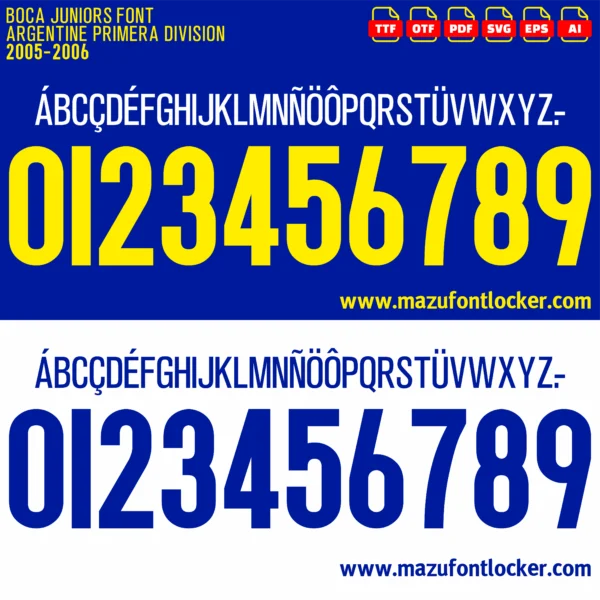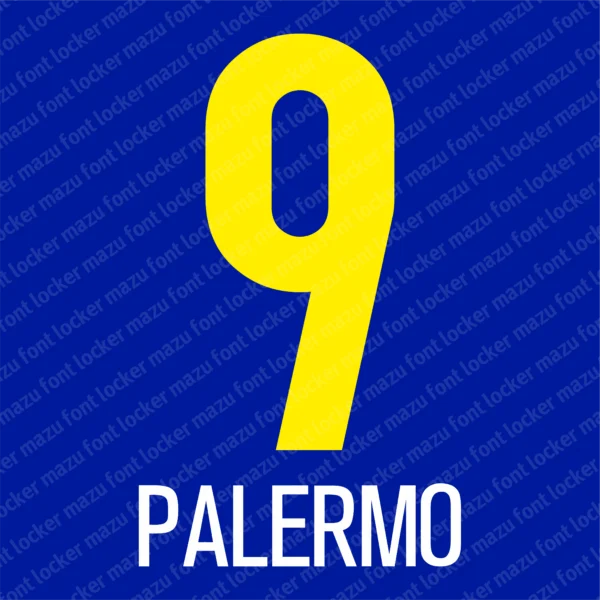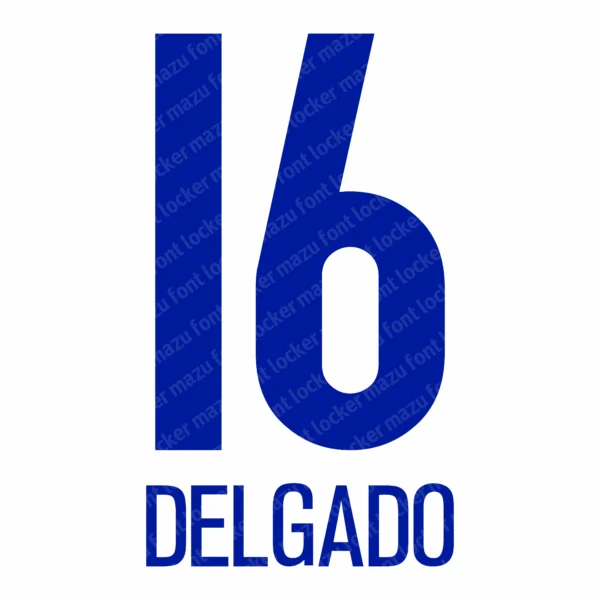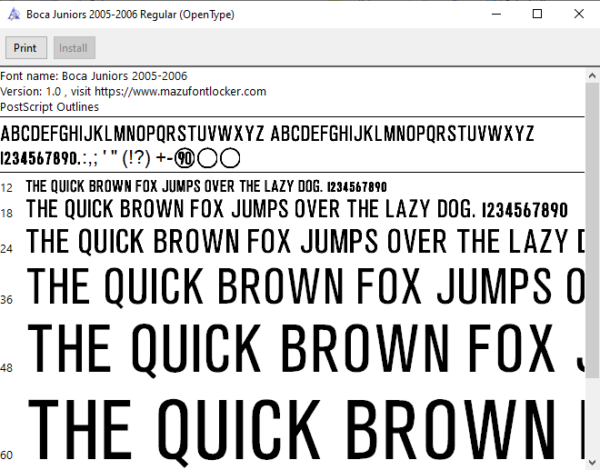
Boca Juniors 2005-2006 Font Vector – Epic Classic La Bombonera Style
This font captures the bold, fearless, gritty, and ultra-premium lettering that perfectly reflects Boca Juniors’ iconic Argentine heritage combined with the fierce, unstoppable, and magical spirit of La Bombonera — delivering unmatched intensity, raw passion, elite craftsmanship, and pure Xeneize fire for premium jersey mockups, epic football designs, spectacular sports visuals, standout fan creations, and professional branding projects.
Boca Juniors 2005-2006 Font Vector – Authentic Xeneize Typeface
The Boca Juniors 2005-2006 Font Vector is a premium typeface that accurately recreates the official match lettering worn by Boca Juniors during the iconic 2005-2006 season. This high-quality vector font kit captures the bold, passionate, and powerful typography that represents the legendary heritage, fighting spirit, and massive fanbase of the Xeneize.
Designed for professional designers and devoted Boca supporters, the Boca Juniors 2005-2006 Font Vector delivers perfect authenticity for creating realistic jersey mockups, fan merchandise, matchday posters, social media graphics, and Argentine football content. It pairs beautifully with the iconic blue and yellow Boca Juniors kit, one of the most recognizable club identities in Argentina and world football.
This font stands out because of its sharp vector precision and strong club identity. Every letter and number is crafted to match the exact style used on the players’ shirts during Boca’s memorable 2005-2006 campaign. Whether you are creating realistic kit templates or exciting Xeneize-themed content, the Boca Juniors 2005-2006 Font Vector gives your designs that authentic La Bombonera atmosphere.
The letterforms in the Boca Juniors 2005-2006 Font Vector are bold, aggressive, and highly readable. The strokes feature strong geometric construction combined with classic athletic styling, creating a powerful appearance that stands out on jerseys while preserving Boca’s legendary football heritage and Argentine passion.
The numerals feature robust curves and clean, sharp edges, delivering a confident and premium appearance. This vector design ensures flawless scalability and excellent legibility across both print and digital applications.
- Full uppercase A–Z and numbers 0–9 in authentic Boca Juniors 2005-2006 style
- Multilingual Latin character support including Spanish accents and special characters
- Includes the exact crest glyph placement used beneath player numbers
Boca Juniors 2005-2006 Season
The 2005-2006 season was a golden chapter for Boca Juniors as the club continued its dominance in Argentine and South American football. Playing at the historic La Bombonera, the Xeneize squad featured stars like Carlos Tevez and showcased their trademark intensity, tactical brilliance, and never-say-die attitude. Under strong leadership, Boca fought for honors in the Primera División and Copa Libertadores, cementing their status as one of the biggest clubs in the world.
The Boca Juniors 2005-2006 Font Vector is an independently designed typeface package. It is carefully crafted to replicate the official shirt lettering style used during Boca’s 2005-2006 season. This font kit is perfect for creative projects, fan edits, football-inspired artwork, and custom sports graphics.